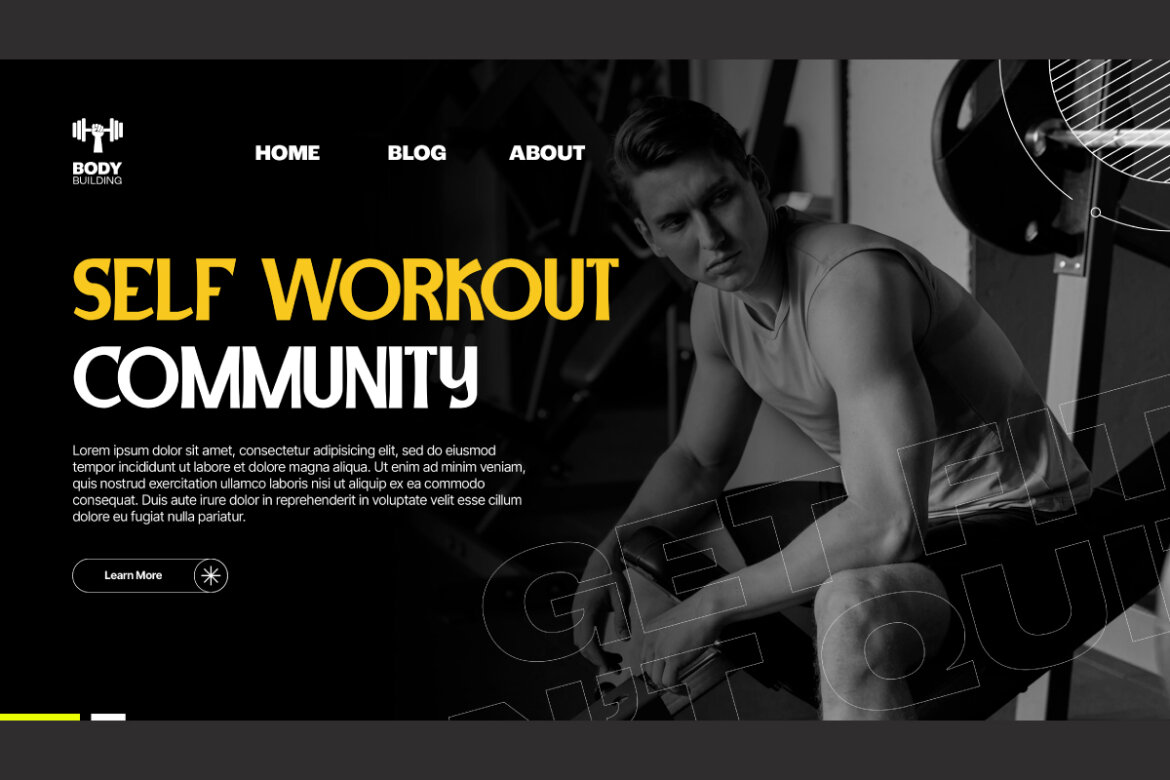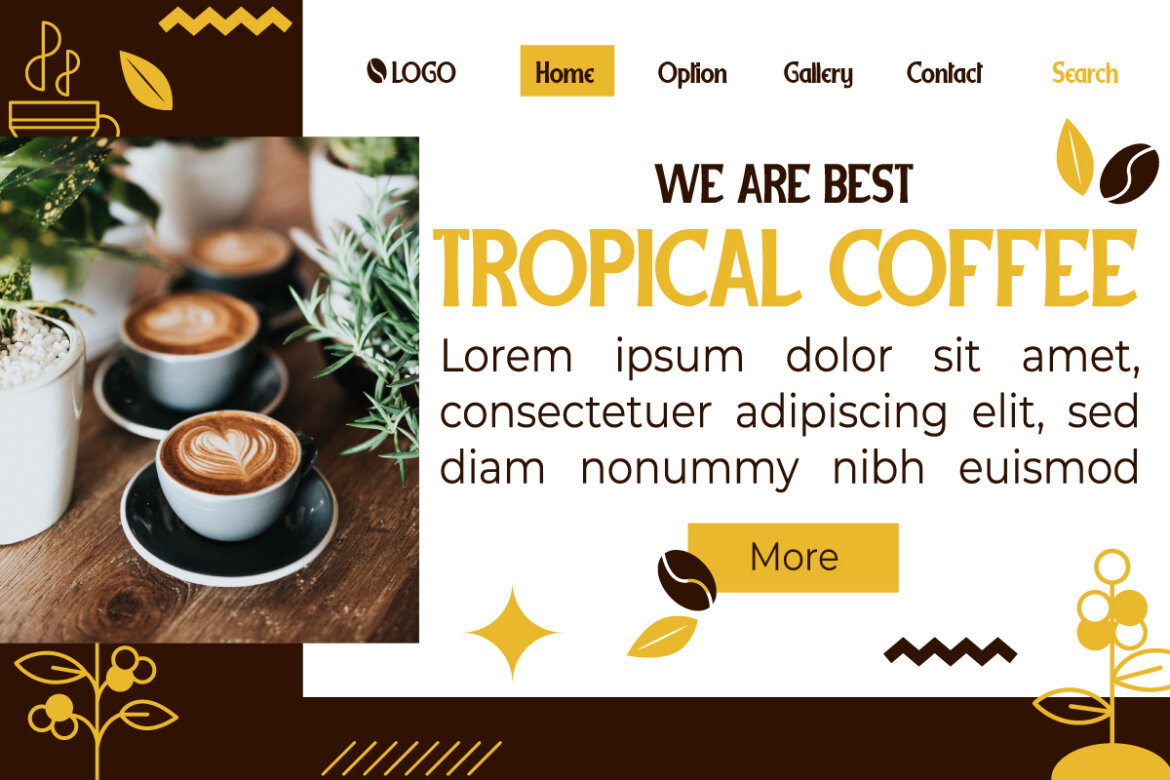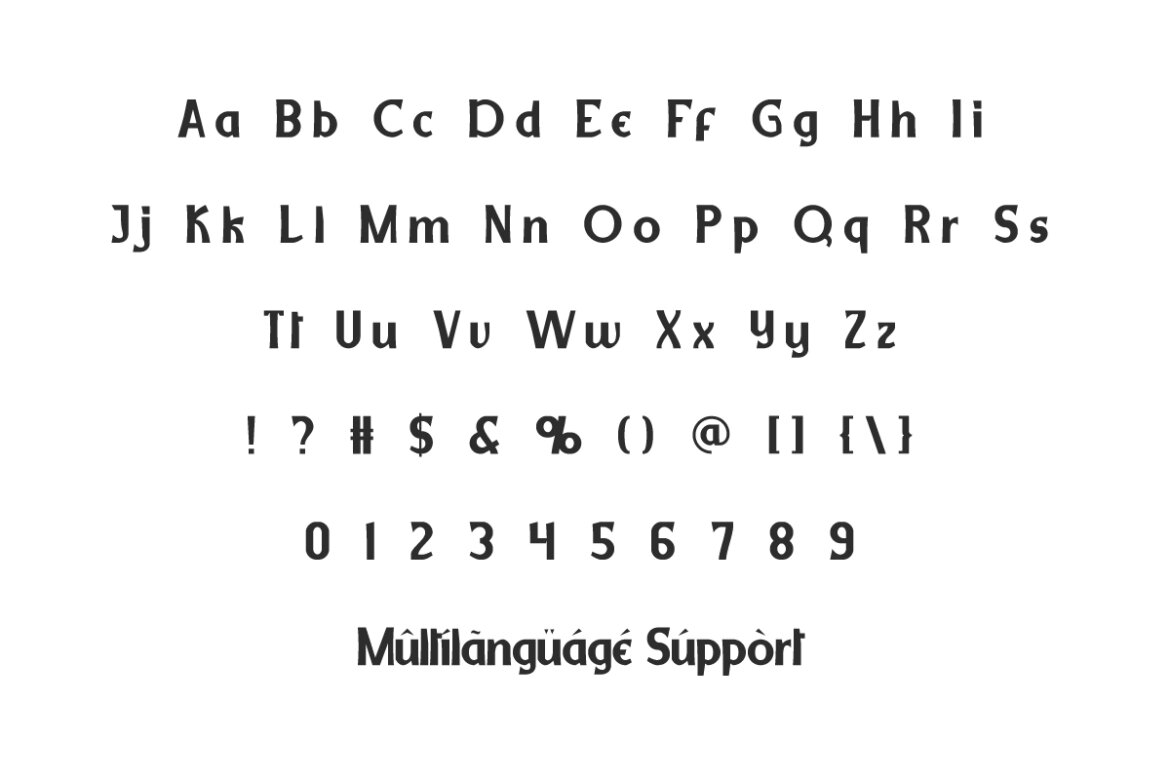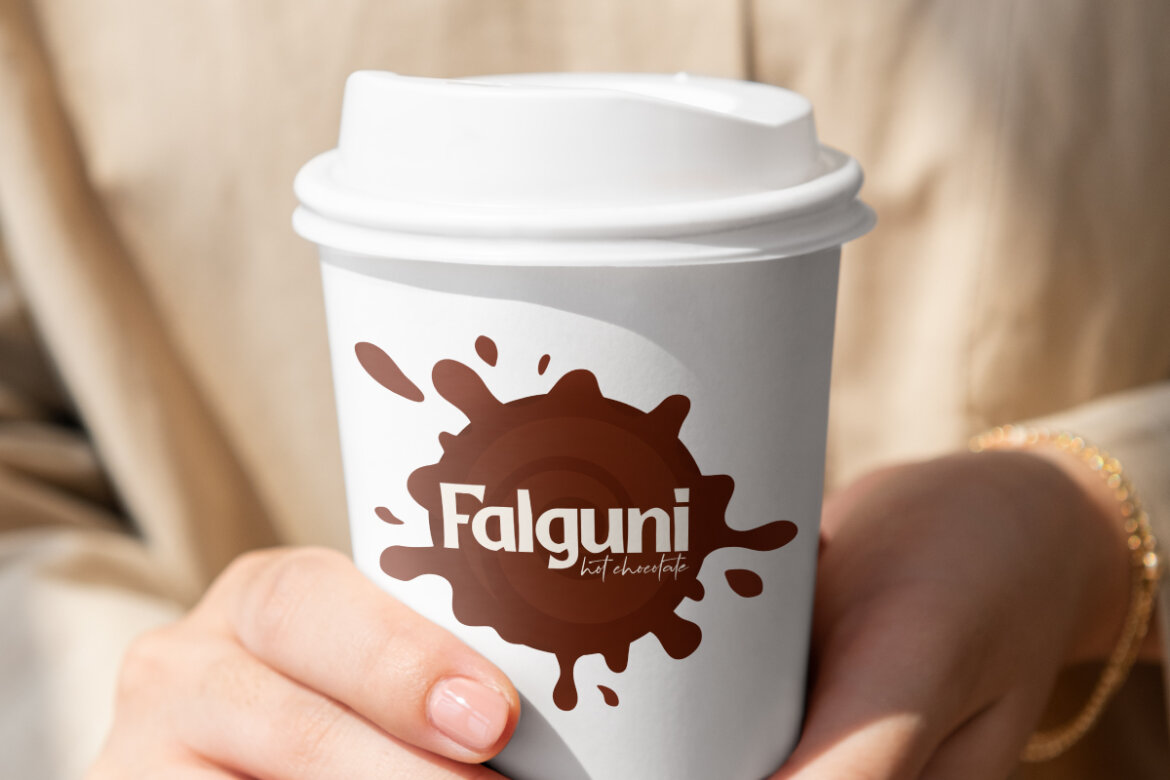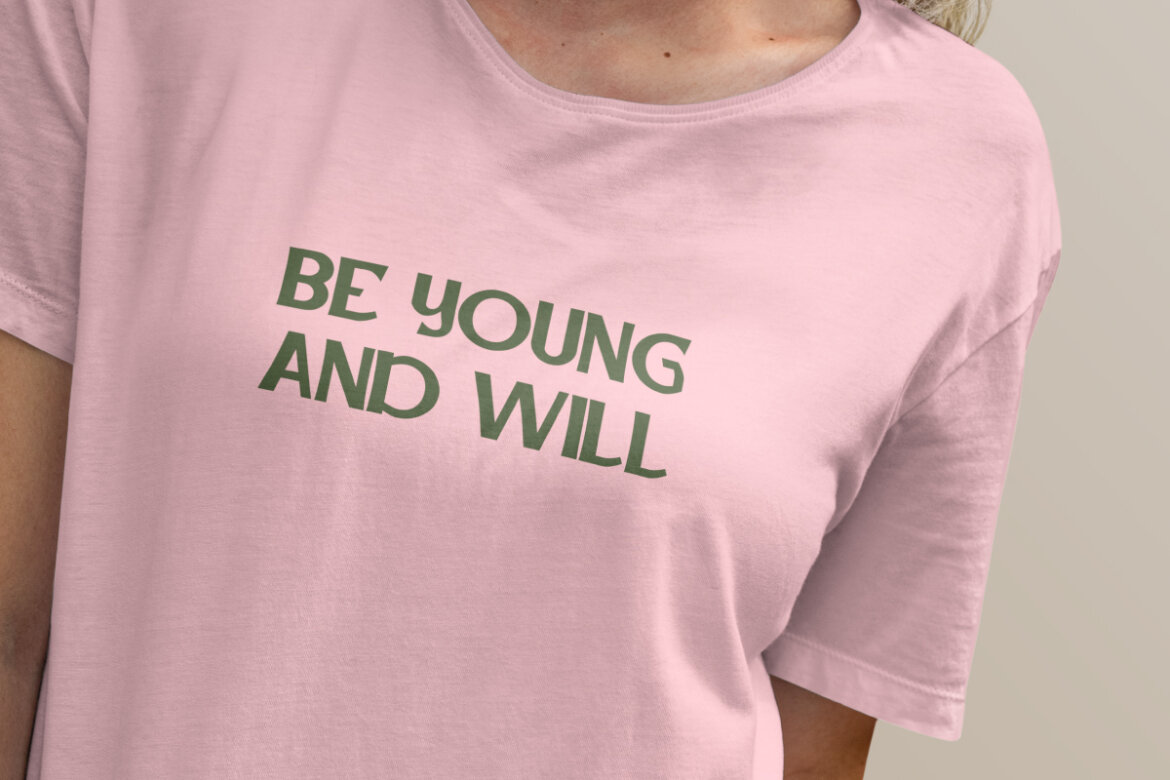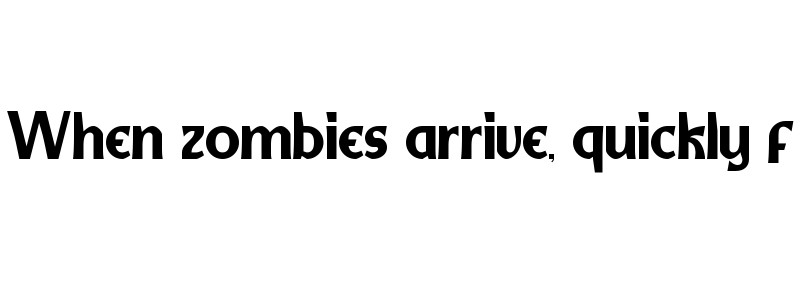
Bronaco
Bronaco Font is a classic display font that is bold and authentic. This is the basic form of letters that is commonly used but made to look more ancient. The font is suitable for branding logos, brochure, card designs, headers, labels, packaging design, poster, print on fabrics, stickers, template product, website, and many more.
Bronaco Font includes a complete set of Basic Uppercase and Lowercase Characters, Numbers, Punctuation and Symbols. This is a handcrafted typeface inspired by classic films and often makes people nostalgic. It will be perfect for antiques brands, apparel, cafeteria, cinema, crockery, fashion, film, fitness, graphic design, handicrafts, movie, photography, and much more.